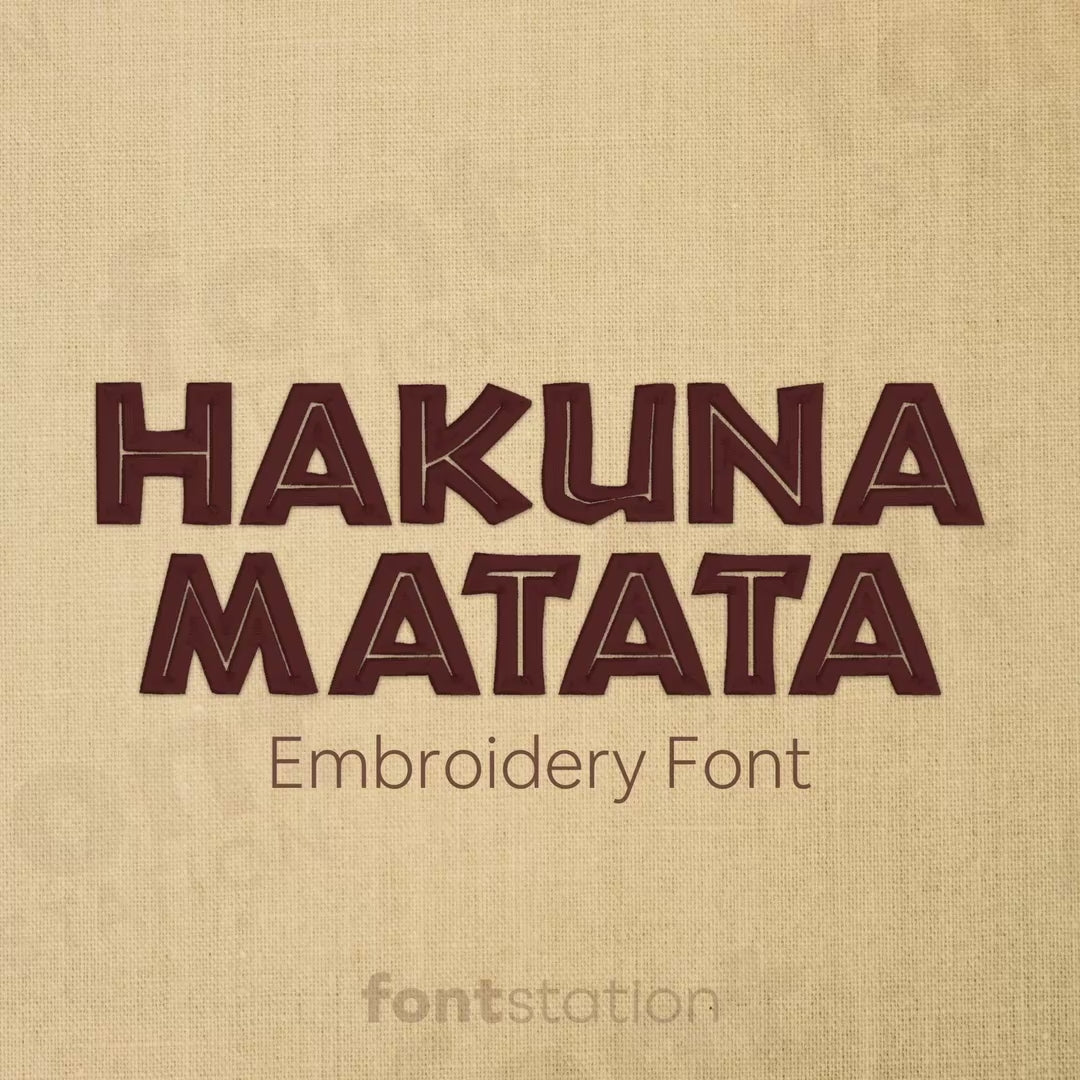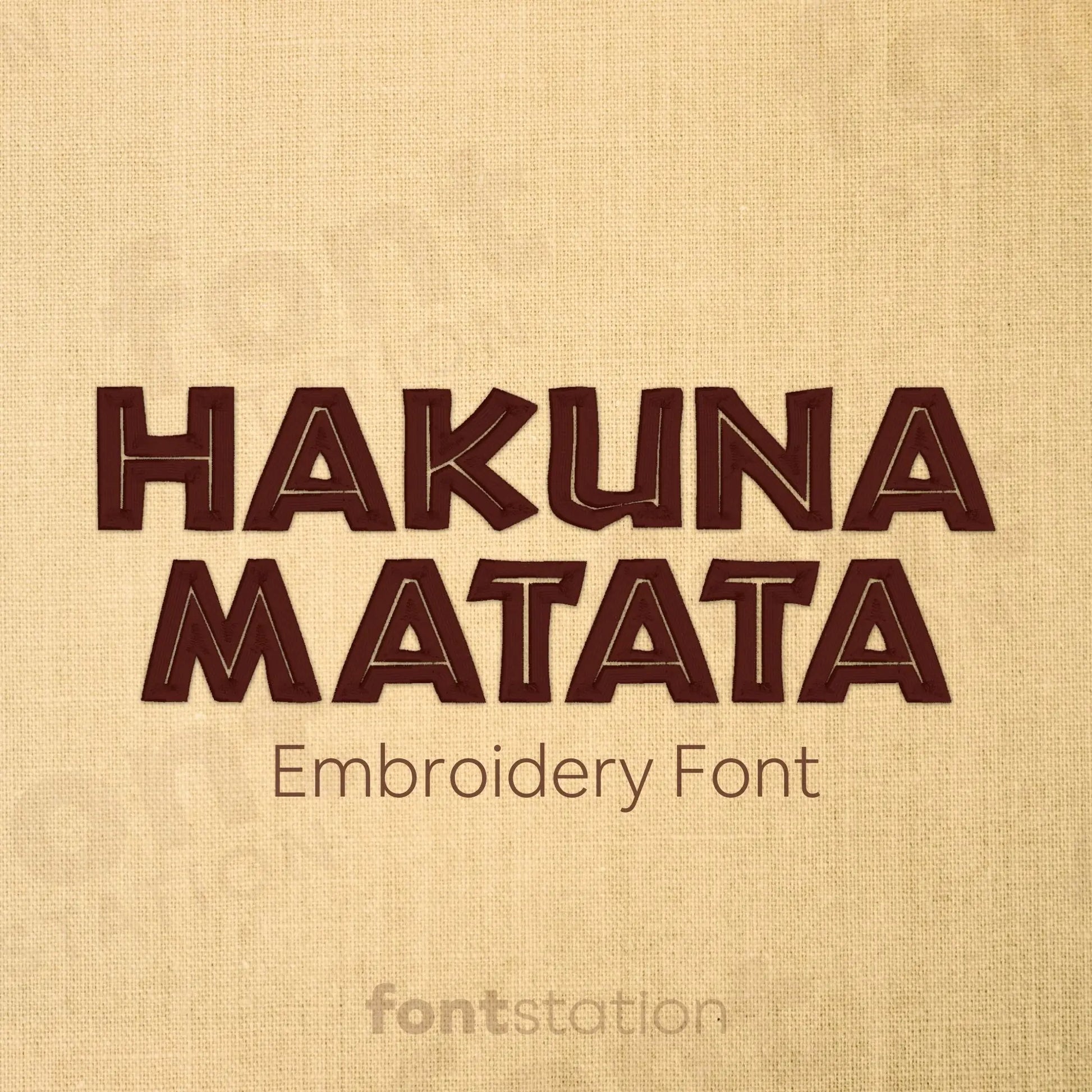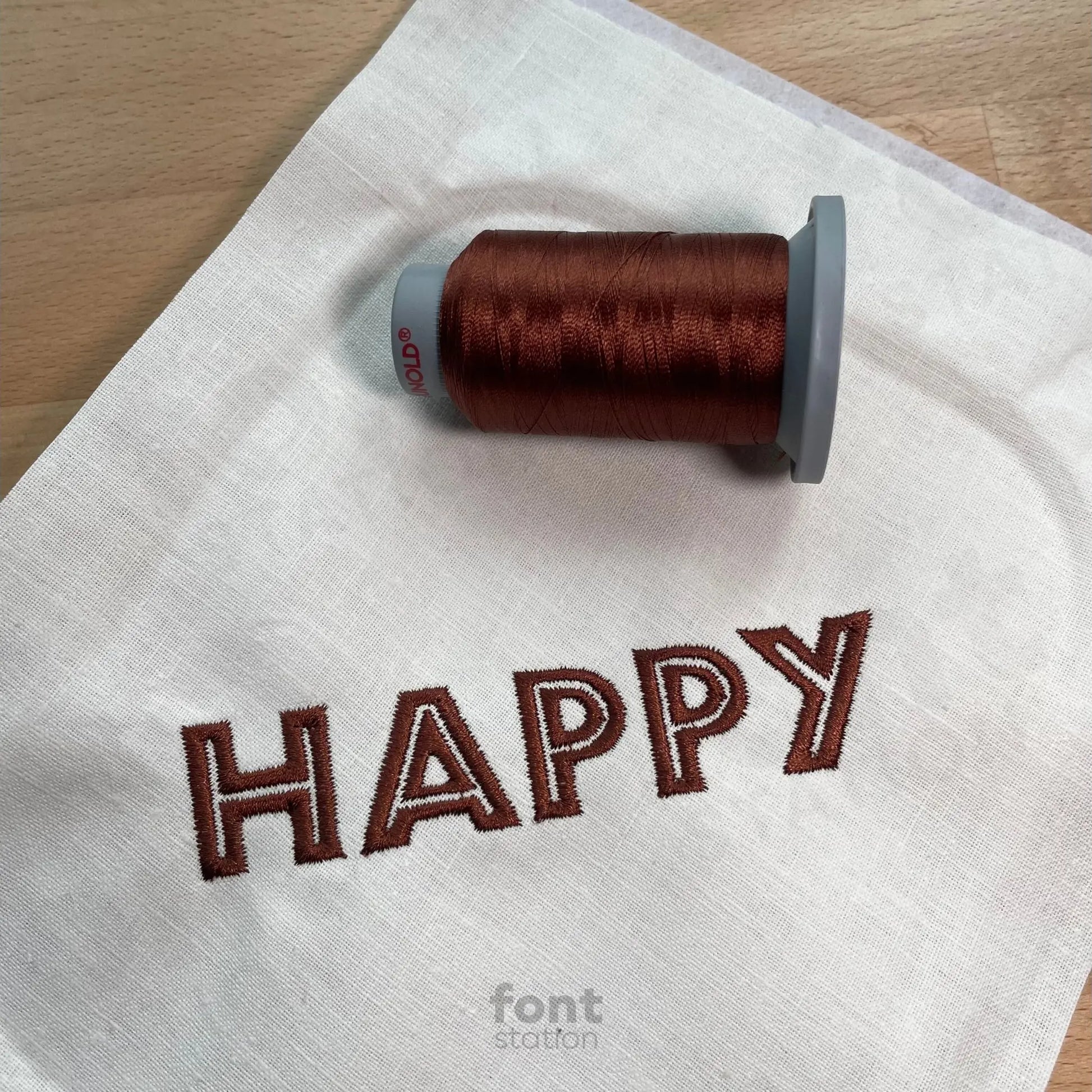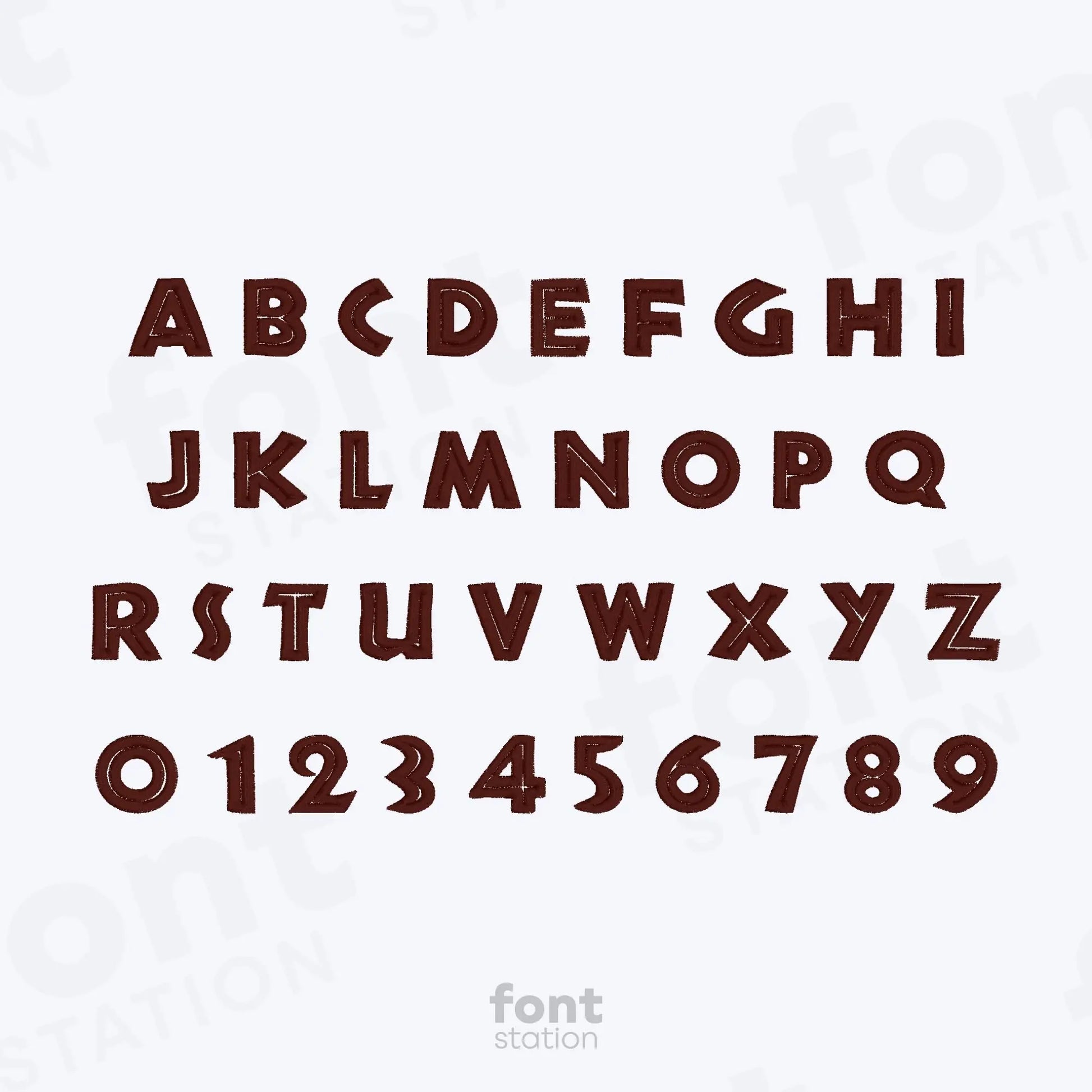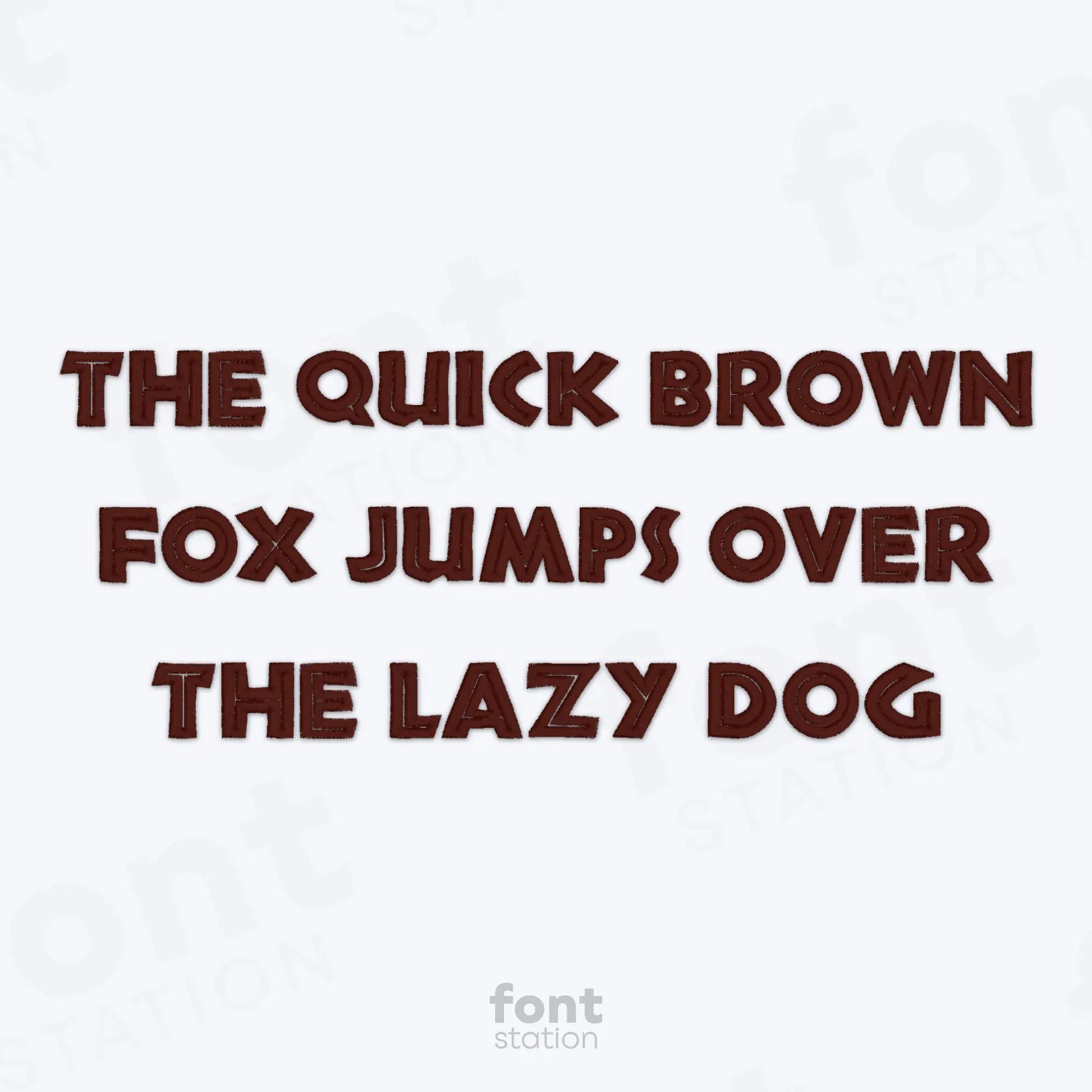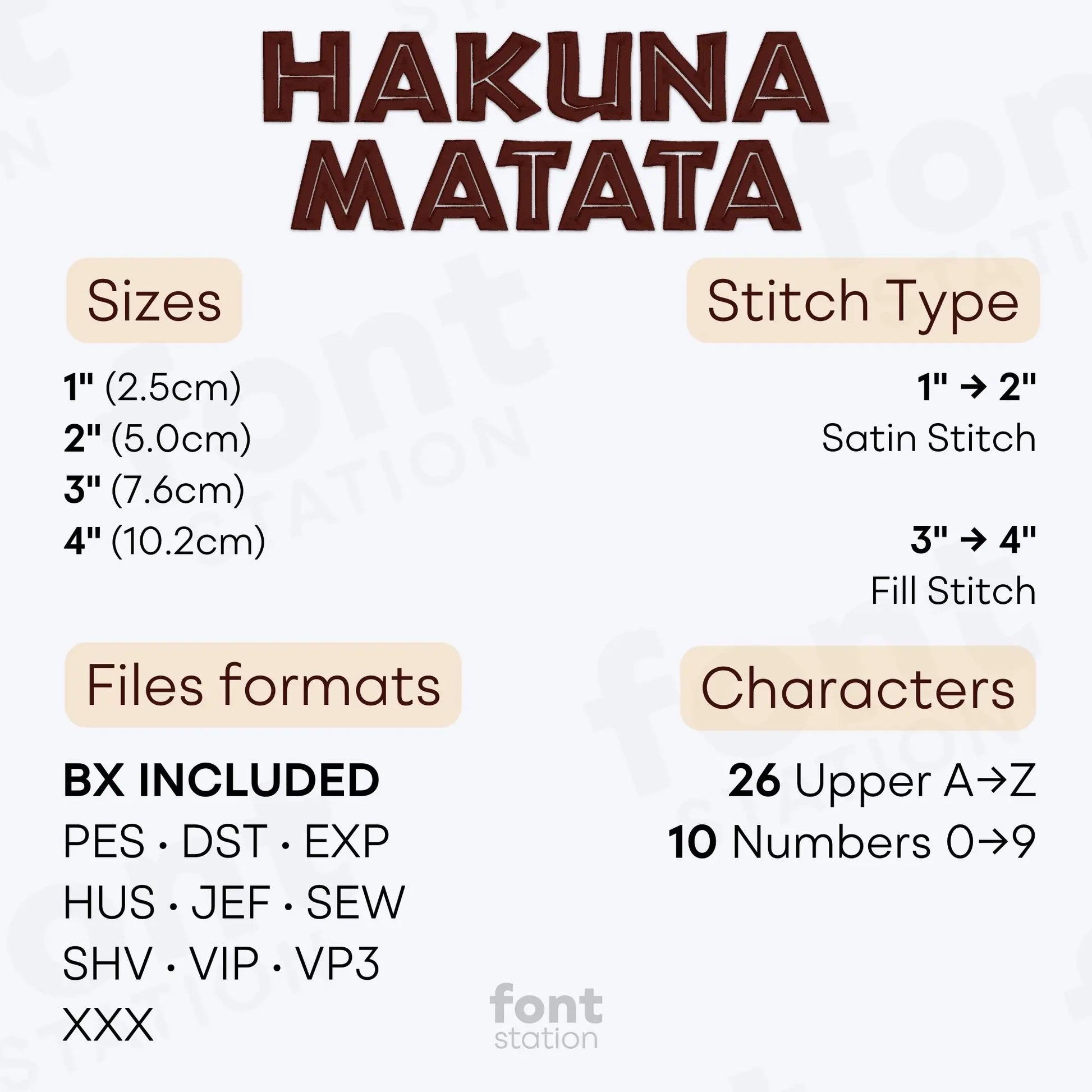
Hakuna Matata Embroidery Font
Introducing our Hakuna Matata embroidery font, a playful safari-style alphabet perfect to stitch fun animal letters on your next creative project. These bold, friendly designs work beautifully with your embroidery machine and bring a touch of jungle joy to every stitch.
About the Hakuna Matata Embroidery Font
Our Hakuna Matata embroidery font brings safari magic and playful energy to your embroidery designs.
The Hakuna Matata embroidery font features a wild and friendly alphabet inspired by safari adventures, animal kingdoms, and carefree creativity. With bold, rounded letters, this embroidery font is perfect for jungle-themed projects, baby gifts, birthday gear, and playful decor. Digitized for smooth stitching, it works beautifully on any embroidery machine and is available in popular formats like BX, PES, DST, JEF, EXP, VP3, HUS and more.